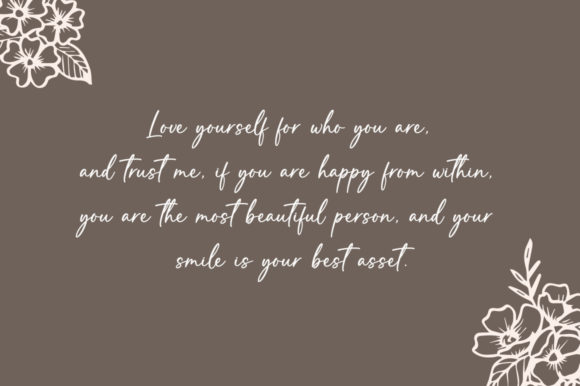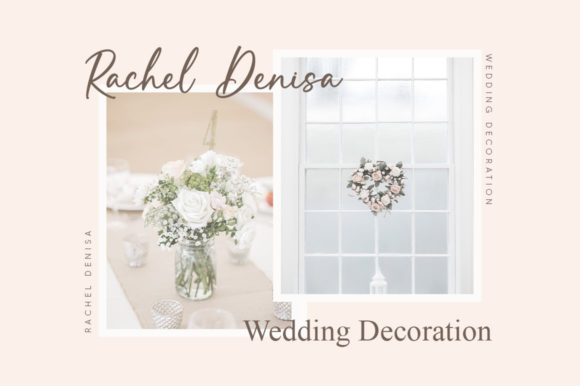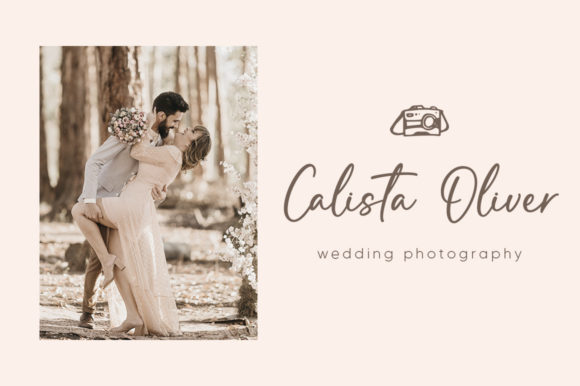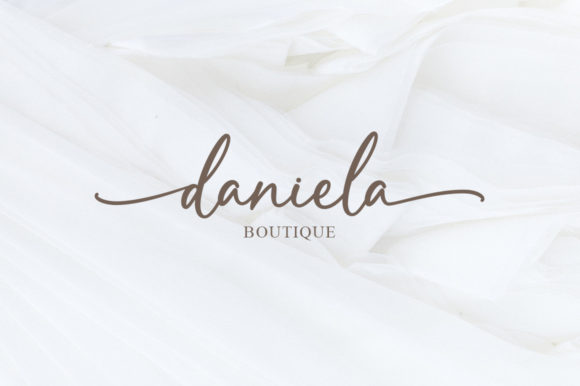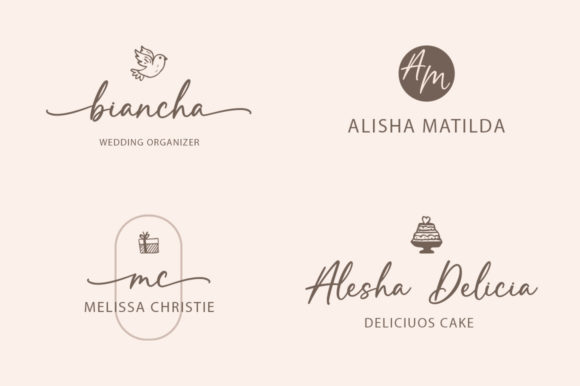
The Quest for the Perfect Font: Discovering Beautiful
I still remember the frustration of working on a project, hours spent crafting the perfect design, only to have it fall flat because of one crucial element: the font. My client wanted an elegant, sophisticated look, but everything I tried seemed either too bland or too over-the-top. That’s when I stumbled upon Beautiful, an elegant script font that has since become a staple in my design toolkit.
A First Impression: What Makes Beautiful Stand Out
Beautiful is more than just a font; it’s a statement piece. Inspired by timeless classic calligraphy, it strikes a perfect balance between modernity and tradition. Its design is impeccable, with a contemporary atmosphere that breathes elegance into any project. Whether you’re working on a branding project, a wedding invitation, or a personal craft, Beautiful has the versatility to enhance your work with its sophisticated charm.
Let’s dive into what makes Beautiful a fantastic choice for designers, crafters, and creative hobbyists alike.
- ✨ Elegant and Versatile: It’s perfect for projects that demand a touch of sophistication and grace.
- ✅ Balanced Design: Not too thin, not too thick – it hits that sweet spot that makes it easy to read and visually appealing.
- 🎉 PUA Encoded: This means you can easily access all the glyphs and swashes, giving you the flexibility to customize your text.
But, like any font, Beautiful isn’t without its quirks:
- 🤔 Compatibility Issues: Some older software might not support OpenType features, limiting your access to the font’s full potential.
- ⚠️ Overuse: Given its elegance, there’s a risk of overusing Beautiful in a single project, which can dilute its impact.
The Story Behind Beautiful: Designer Inspiration
The story goes that the creator of Beautiful was inspired by the exquisite calligraphy found in ancient manuscripts. With a passion for typography and a keen eye for detail, they aimed to bring a piece of history into the modern world, making it accessible to designers and hobbyists alike. This dedication to craft is evident in every swash and glyph of Beautiful.
| Is Beautiful suitable for body text? | While Beautiful is elegant and highly readable, it’s best used for headings and short paragraphs due to its script nature. |
| Does Beautiful include a variety of swashes? | Absolutely! Beautiful comes with a range of swashes and glyphs, accessible through OpenType features in compatible software. |
| Is Beautiful easy to read? | Yes, Beautiful strikes a balance between elegance and readability, making it suitable for a wide range of projects. |
In conclusion, Beautiful is a versatile and elegant script font that can elevate any design project. Its timeless charm, combined with modern features like PUA encoding, makes it a valuable addition to any designer’s toolkit. Whether you’re crafting a brand identity, designing a wedding invitation, or simply exploring your creativity, Beautiful is sure to inspire.